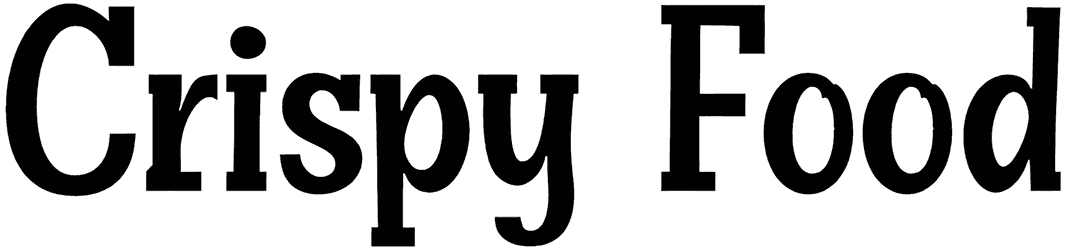
Crispy Food Font
Say hello to Crispy Food, a bold, fun, serif font with a nostalgic vibe, so it will work great with your retro project. This menu font doesn’t include numbers but instead supports all other characters and is even multilingual. You can use this fancy vintage-style font as café decoration, signs, pamphlets, book titles, and classic design.